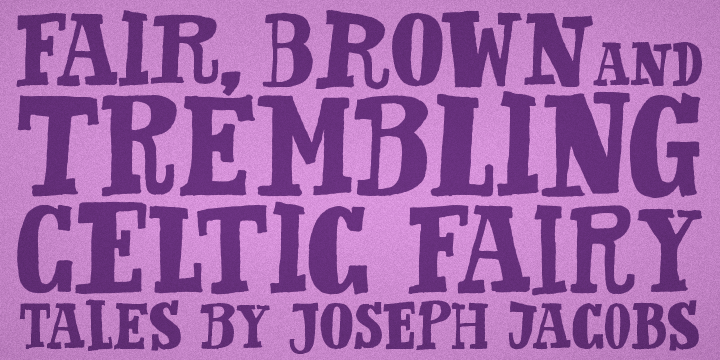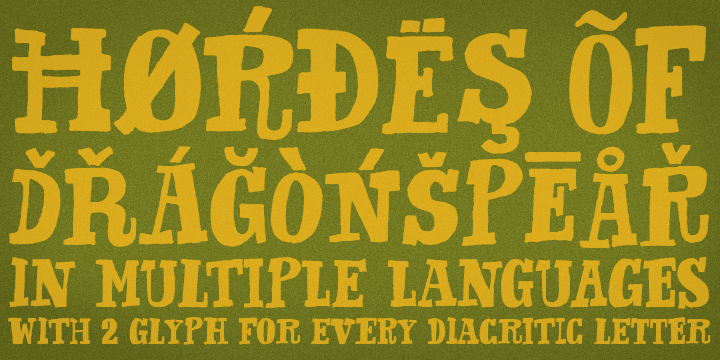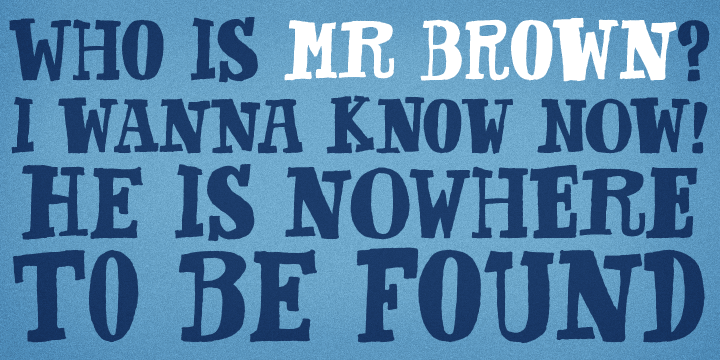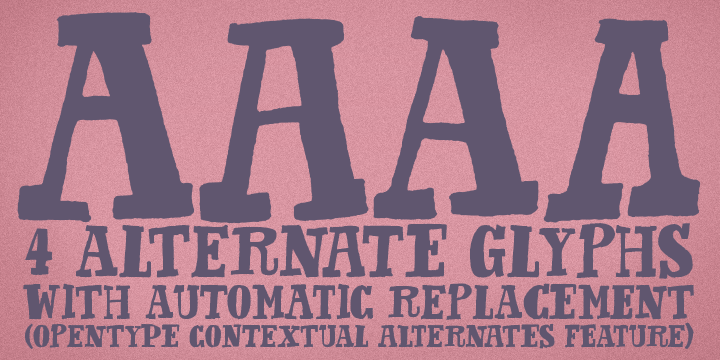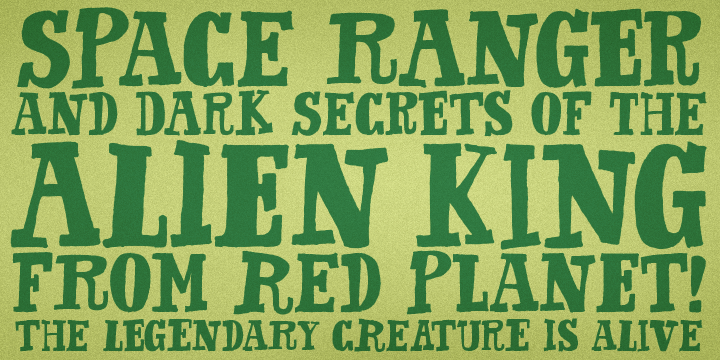
Mr Brown is a hand display font published by Hipopotam Studio.
Mr Brown is a typeface based on hand drown letters to our new book for children. It has up to four alternate glyphs for each character. You can switch them manually or use OpenType Contextual Alternates feature. It will automatically set alternate glyphs depending on frequency of appearance of the same character. The script doesn’t throw random glyphs. For example in the word “HIPPOPOTAMUS” you will automatically get three different “P” glyphs and two “O” glyphs. It really works great but of course you can always fine tune it by hand.